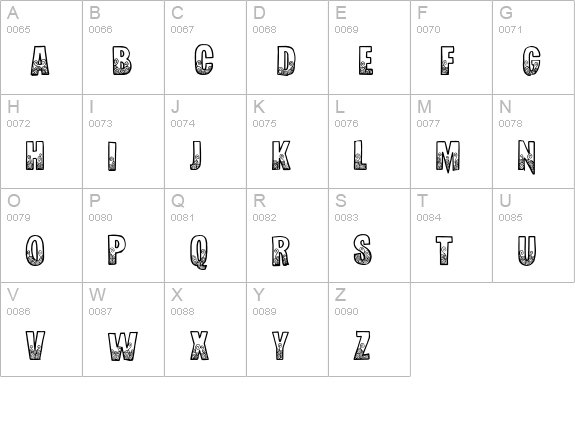
Red Snapper Font Details
Red Snapper is a captivating and versatile font that effortlessly combines modern elegance with a touch of playfulness. Its sleek and curvaceous letterforms exude a sense of sophistication, making it the perfect choice for a wide range of design projects. This font's smooth and flowing lines give each character a sense of motion, adding a dynamic flair to any text. Whether used for headlines, logos, or body text, Red Snapper commands attention and leaves a lasting impression. But what truly sets Red Snapper apart is its accessibility. It is not only visually stunning but also freely available to download at FontsMarket.com. This means that designers, enthusiasts, and creatives of all kinds can easily incorporate this font into their projects without any financial barriers. With Red Snapper, the possibilities are endless. From fashion magazines to corporate branding, from wedding invitations to social media graphics, this font effortlessly adapts to any design brief. Its versatility is further enhanced by a wide range of weights and styles, allowing for endless combinations and creative expressions. So, if you're in search of a font that combines elegance, playfulness, and accessibility, look no further than Red Snapper. Download it freely at FontsMarket.com and let your creativity soar.